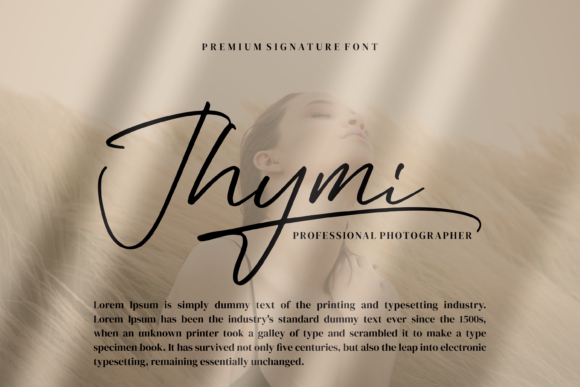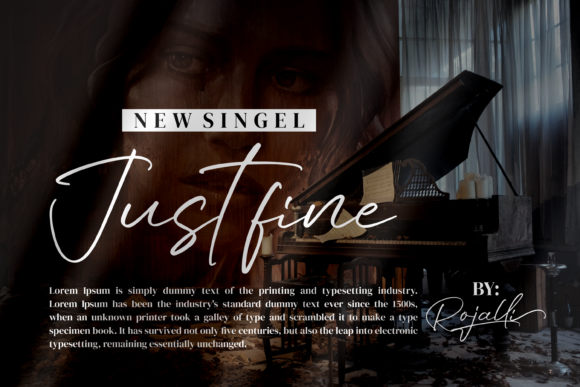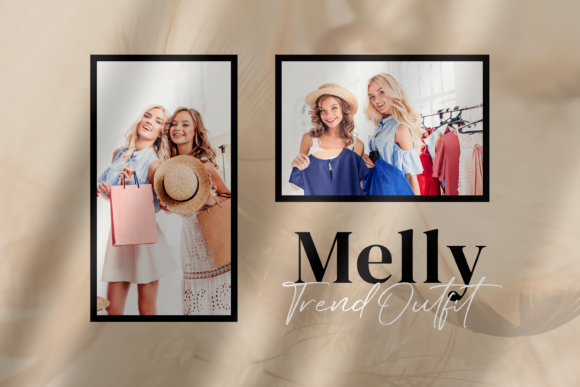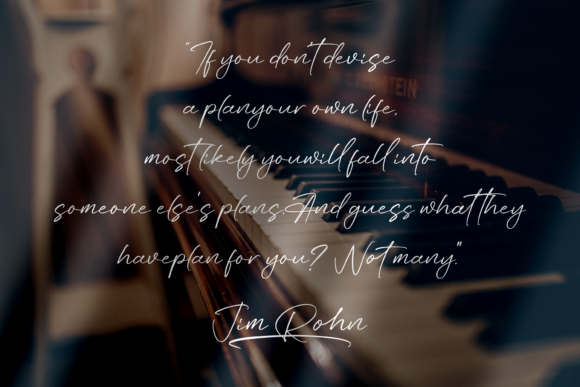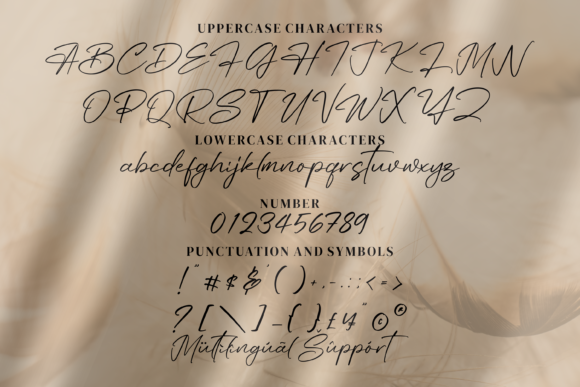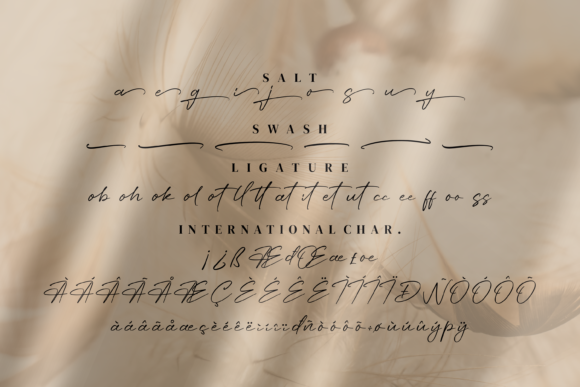
Introducing Angelin Font: Elevate Your Designs with Elegance and Magic
Are you a designer, crafter, or creative looking for a font that can add a touch of sophistication and whimsy to your projects? Look no further than Angelin Font, a beautiful script font designed to transform your ideas into works of art. In this article, we’ll dive into the features and benefits of Angelin Font, and explore how it can elevate your designs to the next level.
The Magic of Angelin Font
Angelin Font is a carefully crafted script font that exudes elegance and charm. With its flowing lines and delicate curves, this font is perfect for adding a touch of sophistication to any design project. Whether you’re working on a logo, branding materials, invitations, or digital graphics, Angelin Font is sure to impress.
One of the standout features of Angelin Font is its PUA (Private Use Area) encoding. This means that you can access a wide range of glyphs and swashes with ease, giving you the flexibility to create unique and eye-catching designs. With Angelin Font, you can add flourishes and embellishments to your text, taking your designs from ordinary to extraordinary.
Key Features of Angelin Font
- Elegant Script Design: Angelin Font features a beautiful, flowing script design that’s perfect for adding a touch of sophistication to your projects.
- PUA Encoded: With PUA encoding, you can access a wide range of glyphs and swashes, giving you the flexibility to create unique and eye-catching designs.
- Versatile: Angelin Font is perfect for a wide range of design projects, from logos and branding materials to invitations and digital graphics.
Angelin Font offers a range of benefits for designers and crafters, including:
- Time-Saving: With Angelin Font, you can create professional-looking designs in a fraction of the time it would take with other fonts.
- Increased Creativity: The PUA encoding and range of glyphs and swashes in Angelin Font give you the freedom to experiment and try new things.
- Consistency: Angelin Font is designed to be consistent across a range of design applications, ensuring that your brand or design style remains cohesive.
Tips for Using Angelin Font
To get the most out of Angelin Font, here are a few tips:
- Experiment with Different Sizes: Angelin Font looks great in a range of sizes, from small and delicate to large and bold.
- Play with Swashes and Glyphs: Take advantage of the PUA encoding and experiment with different swashes and glyphs to add visual interest to your designs.
- Pair with Other Fonts: Angelin Font pairs well with a range of other fonts, so don’t be afraid to experiment and find the perfect combination for your design.
Angelin Font is a magical script font that’s sure to elevate your designs to the next level. With its elegant design, PUA encoding, and ease of use, this font is perfect for designers, crafters, and creatives looking to add a touch of sophistication and whimsy to their projects. Whether you’re working on a logo, branding materials, or digital graphics, Angelin Font is the perfect choice. So why wait? Download Angelin Font today and start creating your own magical designs!